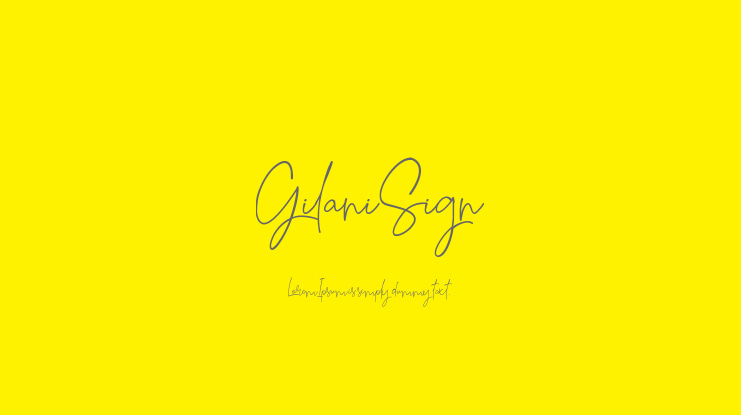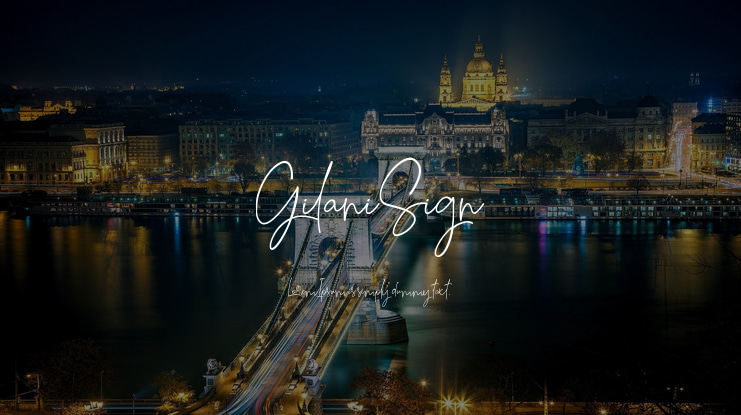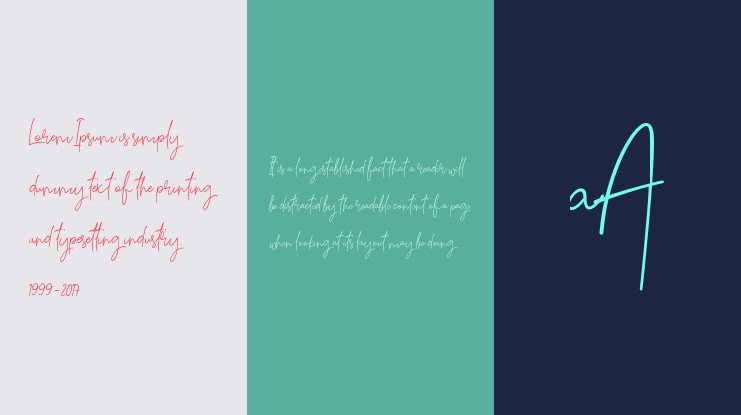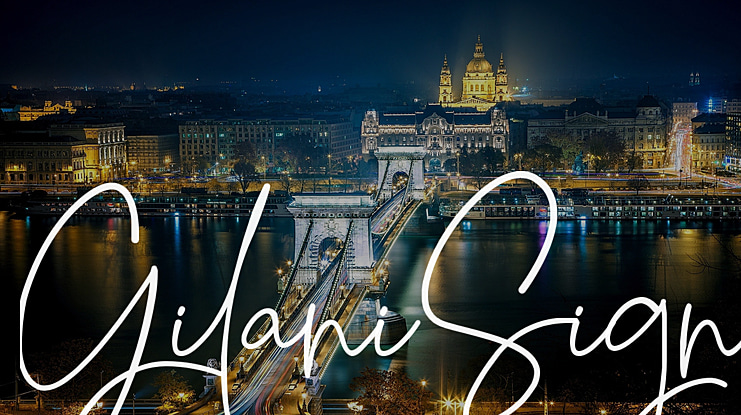
Gilani Sign Font
Introducing the new Gilani Sign script font - A fashionable and super-chilled new handwriting font script with some sexy stylish extras:) Jhon Wick font was created to look as close to a natural handwritten script as possible by including over 271 Glyphs
It's a handwritten font. This font includes all upper and lower case standard character, punctuation, numerals and ligatures. this font Is perfect for logo, invitation, stationery, wedding designs, social media posts, advertisements, product packaging, product designs, label, photography, watermark, special events or anything
With built in Opentype features, this script comes to life as if you are writing it yourself. It's highly recommended to use it in opentype capable software - there are plenty out there nowadays as technology catches up with design...Other than Photoshop, Illustrator and Indesign, many standard simple programs now come with Opentype capabilities - even the most basic ones such as Apples TextEdit, Pages, Keynote, iBooks Author, etc. Even Word has found ways to incorporate it.